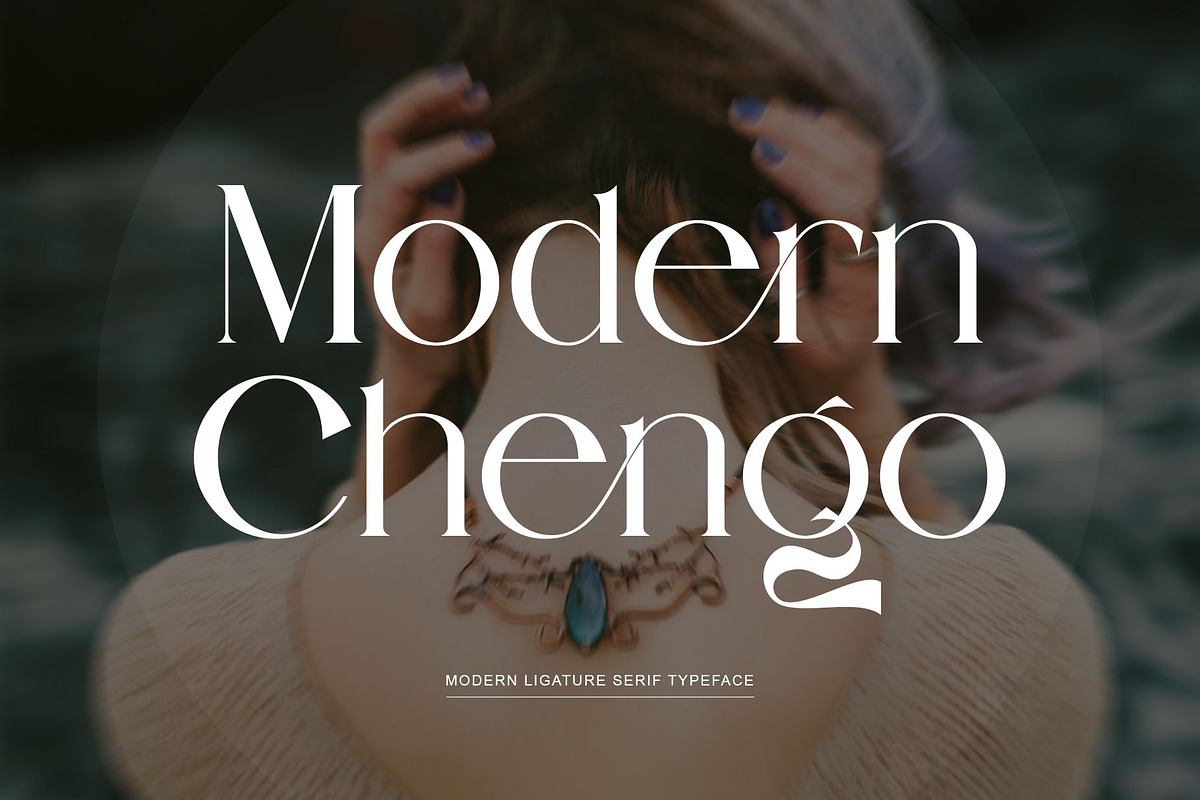
Modern Chengo Ligature Serif Typefac Free Download
Modern Chengo Ligature Serif Typeface Free Download
Modern Chengo Ligature Serif Typeface Free Download is a sophisticated and innovative serif font that combines traditional design with modern ligatures. Featuring smooth curves, intricate details, and stylish connections, this font is perfect for high-end branding, editorial layouts, logos, and creative design projects.
The unique ligature style adds an extra layer of elegance and flair, making Modern Chengo Ligature Serif Typeface Free Download ideal for luxury brands, invitations, and anything that demands a refined, artistic touch. Its versatile design works beautifully in both display and body text, making it perfect for a variety of digital and print applications.